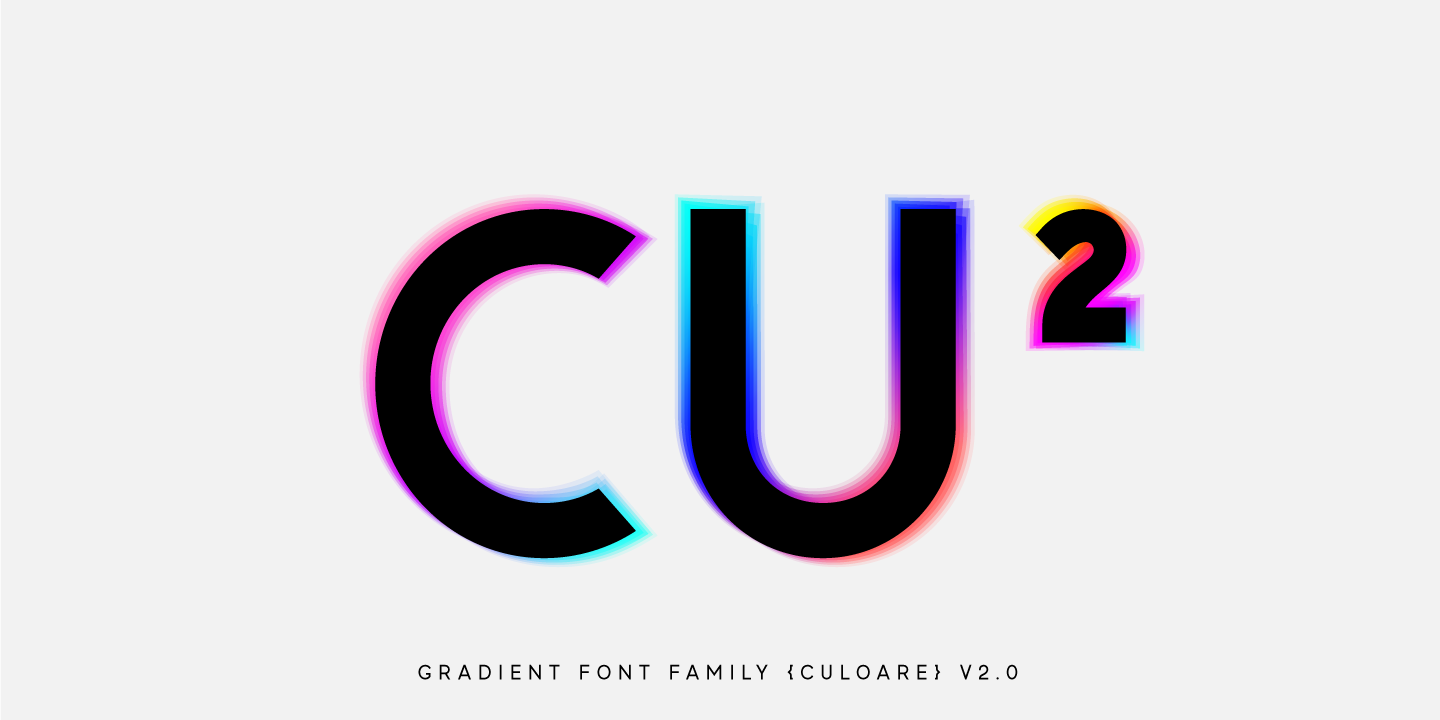
Culoare v.2 Font Free Download is a vibrant and expressive typeface that brings modern creativity to the forefront of your design projects. With its geometric influences, playful curves, and bold character shapes, this font is perfect for brands that want to stand out and make a strong visual impact.
Crafted with both versatility and personality in mind, Culoare v.2 excels in everything from digital artwork and web design to logo creation and branding campaigns. Its contemporary aesthetic makes it a go-to choice for designers who crave originality without compromising readability.
Whether you're working on a tech startup's visual identity or designing eye-catching posters for a creative event, Culoare v.2 Font Free Download delivers a professional yet fun touch to your typography. It’s compatible across multiple platforms and design software, ensuring a smooth workflow from start to finish.
Available in multiple weights and styles, this font provides flexibility for designers who need a complete type solution in one package. From bold headlines to dynamic subtext, Culoare v.2 has the range and clarity to support your creative vision.